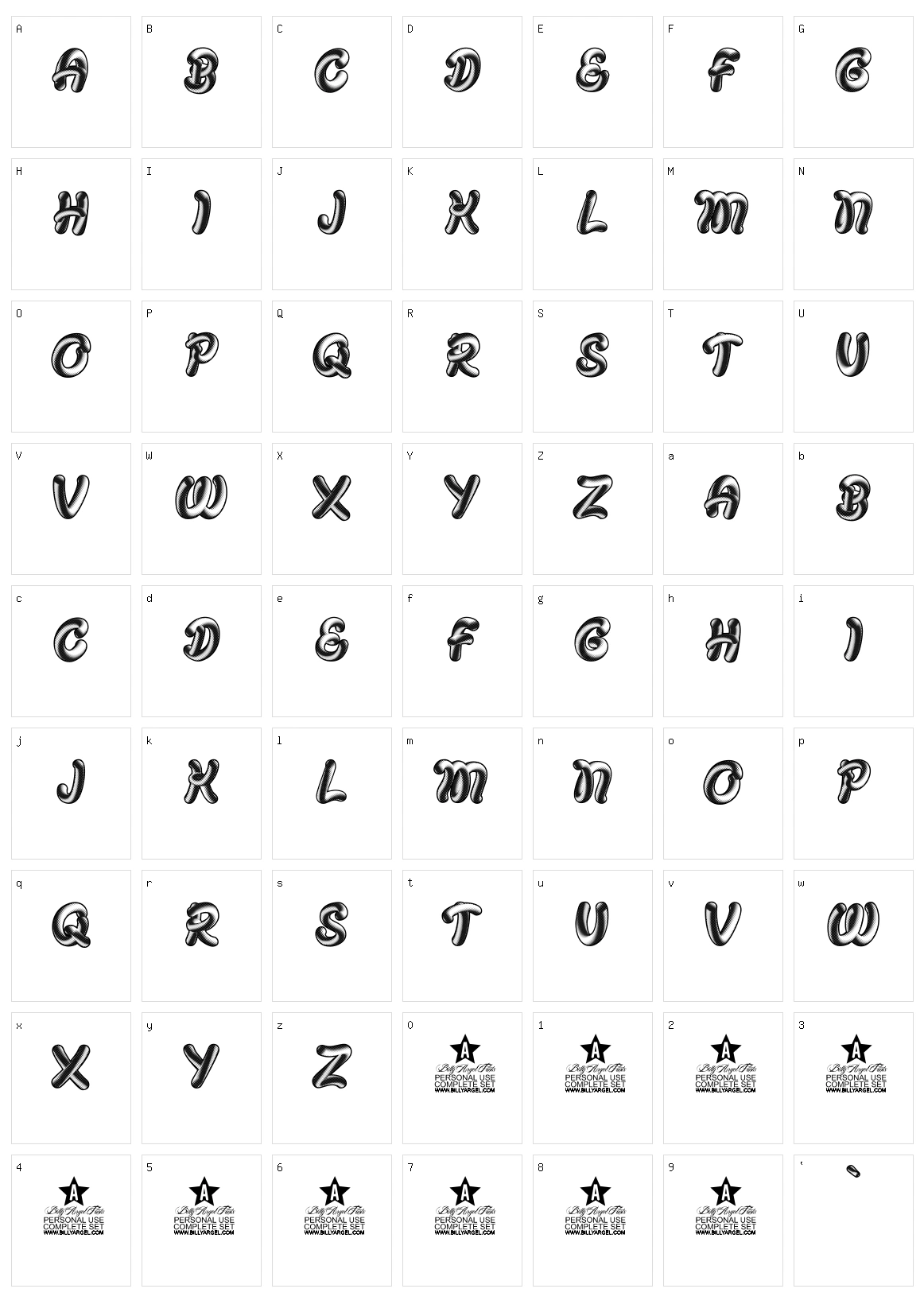
The free font Organical is carefully designed by Billy Argel Fonts ®, showcasing a thoughtful balance of creativity and usability and falls under the Decorative font style. When you download the ZIP file, it contains only 1653.39 KB of font files, making it lightweight and quick to download. Please review the license details below to understand permitted usage and distribution rights. If license information is not available, we recommend using this font for personal projects only or contacting the author directly for commercial usage permissions.